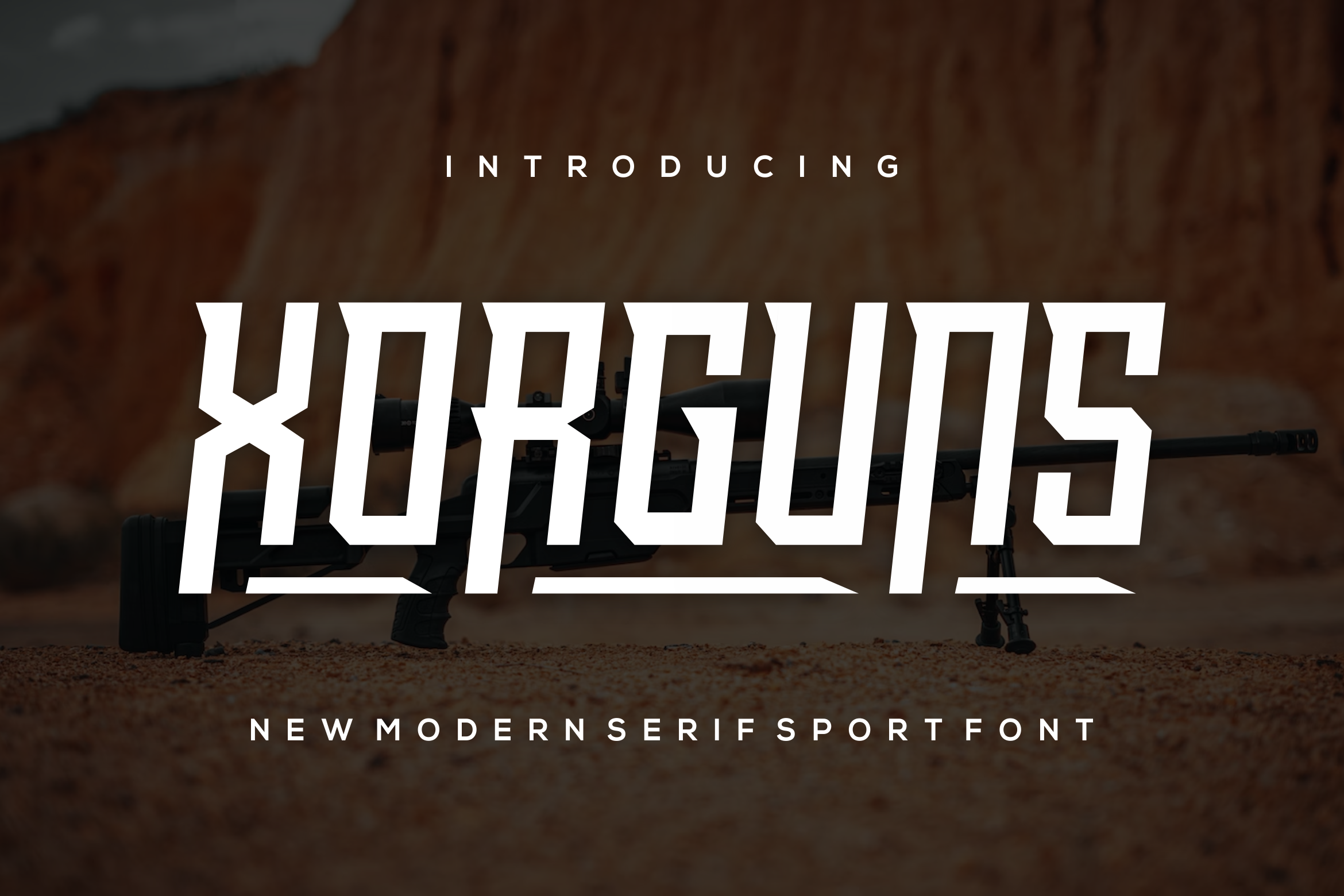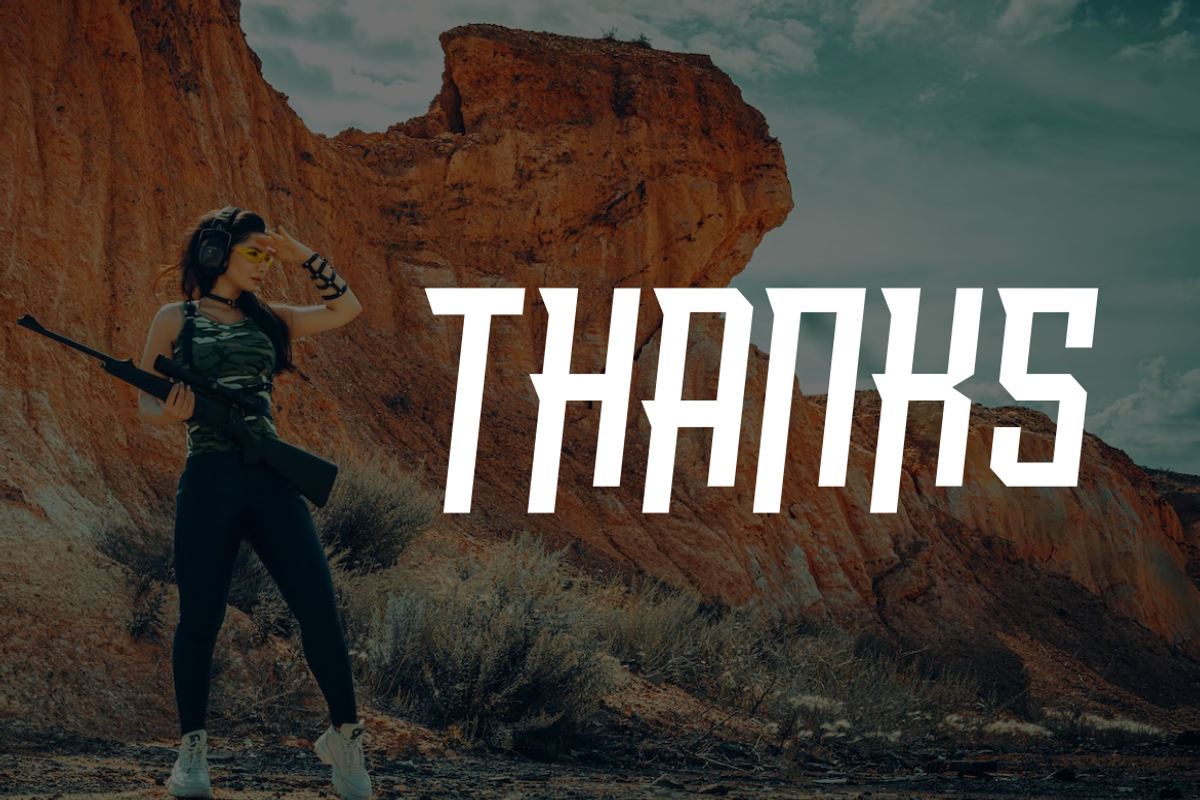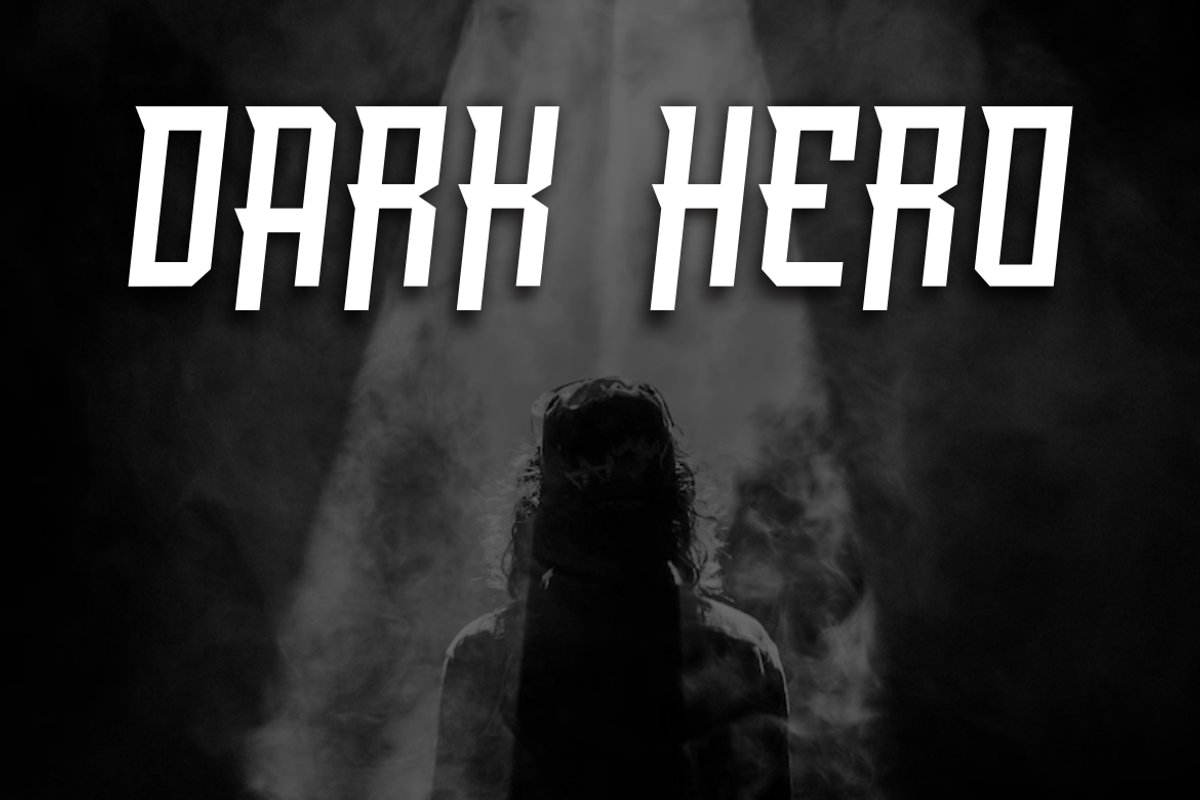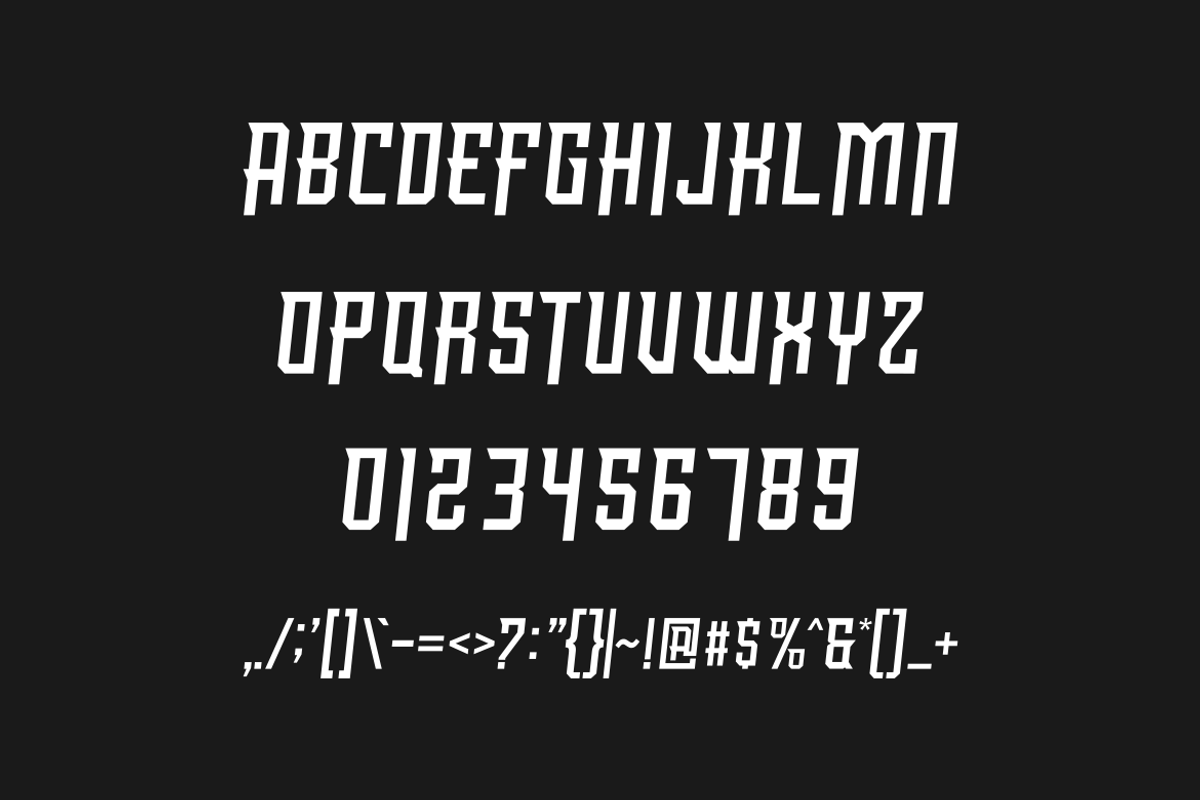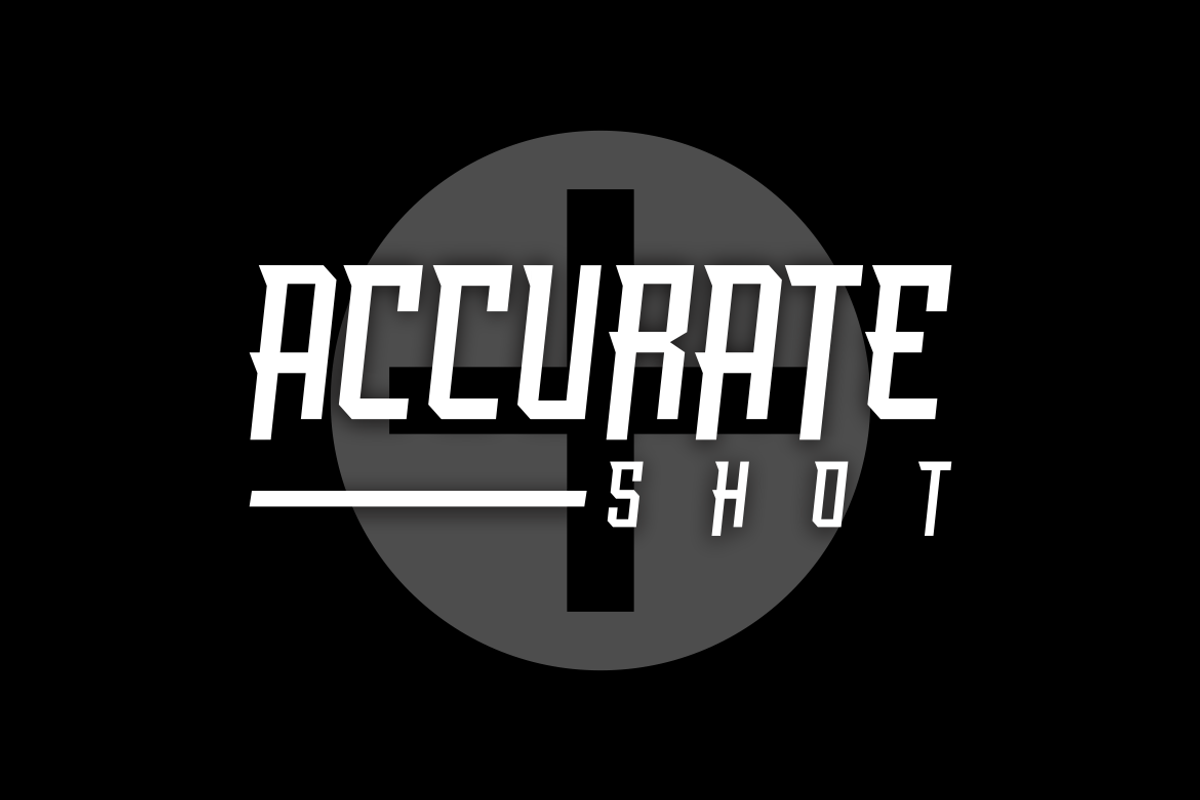
Xorguns Font
Introducing our new product Xorguns Font - Modern Font
Xorguns Font - Modern Font is a bold and authentic display font. The font is suitable for any branding project like logo, esport, and many more. outstanding in a wide range of contexts.